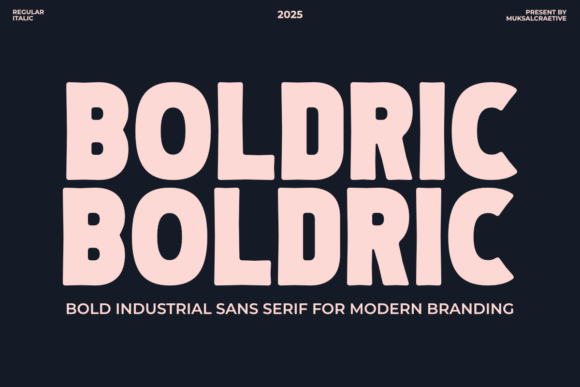
The Boldric Font: A Powerful, Industrial Sans Serif for Impactful Designs
I’ll never forget the design project that led me to discover the Boldric font. I was working on a branding campaign for a new outdoor gear company, and I needed a font that could convey strength, durability, and a modern edge. After hours of searching through font libraries and testing out different options, I stumbled upon Boldric – and it was love at first sight! 💡
The bold industrial sans serif font was designed to deliver exactly what I was looking for: a sturdy, yet contemporary feel that would make the brand stand out. Inspired by vintage industrial signage and retro poster typography, Boldric combines the best of both worlds to create a unique and memorable visual identity.
A Personal Review of Boldric
- ✨ Clean and characterful design: Boldric’s letterforms are both bold and elegant, making it perfect for a wide range of design applications.
- ✅ Multilingual support: This font supports multiple languages, making it an excellent choice for global brands or projects with international reach.
- 💼 Complete feature set: Boldric comes with a full range of uppercase and lowercase letters, numbers, punctuation, and special characters.
While Boldric is an excellent font, there are a few things to keep in mind:
- ⚠️ Limited font weights: Currently, Boldric is only available in a single, bold weight. This may limit its use for certain projects that require a range of weights.
- 🤔 Glyph limitations: While Boldric has a comprehensive character set, some users may find that it lacks certain specialized glyphs or alternate characters.
The Backstory of Boldric
Boldric was designed with the goal of creating a font that would evoke the strength and durability of industrial design, while still feeling modern and fresh. The designer drew inspiration from vintage industrial signage and retro poster typography to create a unique and memorable font.
Q: What is the personality of the Boldric font?
A: Boldric has a powerful, masculine, and professional presence, making it perfect for designs that require a bold statement.
Q: What type of projects is Boldric best suited for?
A: Boldric is versatile enough for both digital use and print projects, making it perfect for branding, posters, logos, packaging, signage, apparel, and editorial layouts.
Q: Does Boldric support multilingual characters?
A: Yes, Boldric supports multiple languages and has a comprehensive character set.